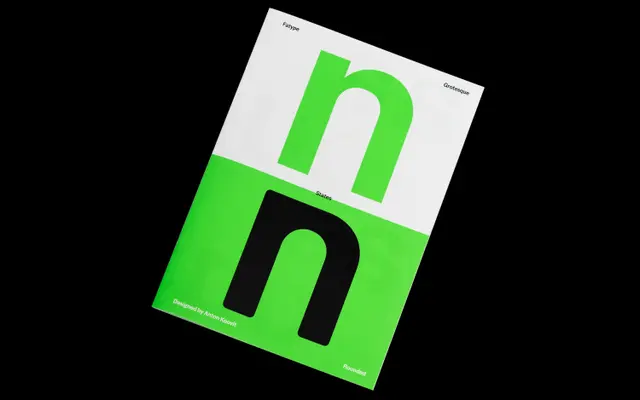
States
A grotesque family in two versions — sharp and rounded — united by a variable Pressure axis that bridges historical poster display type with workhorse jobbing type.
States draws on the two poles of early sans-serif type: the crude, loud poster grotesque and the plain, functional small-print workhorse. Fatype synthesise these into 28 styles across States Grotesque and States Rounded, each running from Thin to Black with matching italics. A selection of alternates channels the idiosyncrasies of physical printing, and the variable font connects both subfamilies through a custom Pressure axis.
A quintessential grotesque in the nineteenth-century tradition, with two subfamilies — Grotesque and Rounded — bridging historical poster and jobbing type traditions. The Pressure variable axis connecting both versions reinforces its grotesque lineage.